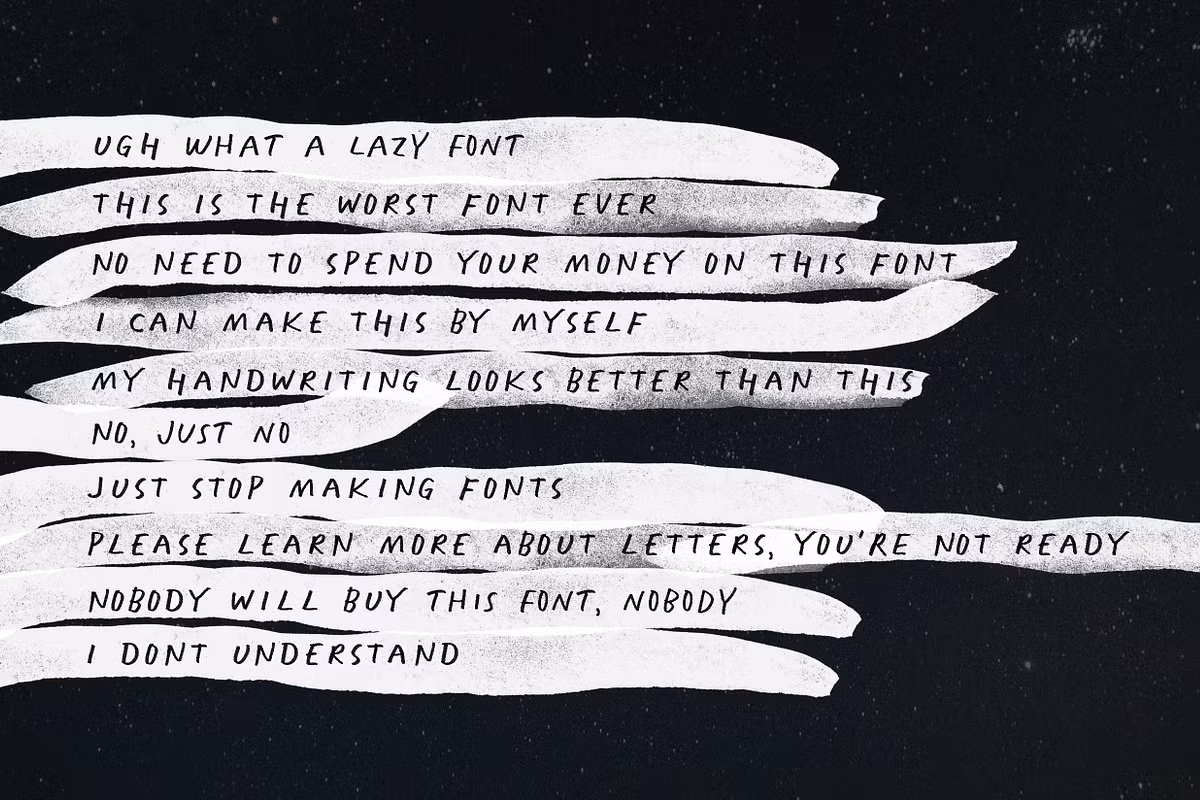
Quisas - Quirky Handwriting Fonts Free Download
Quisas Quirky Handwriting Font Free Download
Quisas Quirky Handwriting Font Free Download is a fun, expressive typeface designed to bring personality and charm to your designs. Featuring irregular strokes and unique, handwritten letterforms, this font is perfect for creating playful logos, social media graphics, invitations, and more.
Its quirky, organic design adds a personal touch to any project, making it ideal for brands, events, and creative works that need a fun and approachable vibe. Whether you're working on a playful brand identity, an invitation, or a casual digital project, Quisas Quirky Handwriting Font Free Download brings a sense of whimsy to your typography.